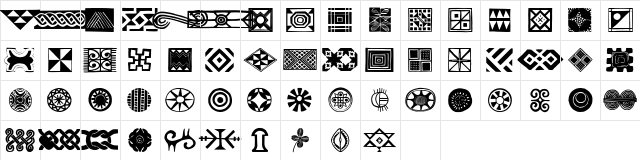
AfricanOrnamentsOne Regular Free Font
AfricanOrnamentsOne Regular
Foundry: by Dixie's Delights
Design Context for AfricanOrnamentsOne
AfricanOrnamentsOne is built around its visual character rather than neutral utility - its distinctive forms are designed to make an impression at display sizes.
Font Pairing: Pair with a clean neutral sans-serif for body copy to let AfricanOrnamentsOne's character lead without overwhelming the composition.
Pro Tip: Use AfricanOrnamentsOne exclusively at display sizes - it was designed to be seen, not read at length. Let a neutral companion handle body copy.
Who designed the AfricanOrnamentsOne Regular font?